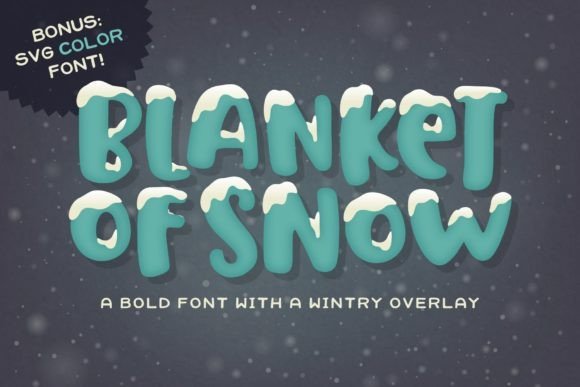
Introduction to Blanket of Snow Font
Blanket of Snow is a wide, bold font packed with personality.
It can be used alone, or with the overlay version placed on top for a snow-capped effect Add it confidently to your projects, and you will love the results.